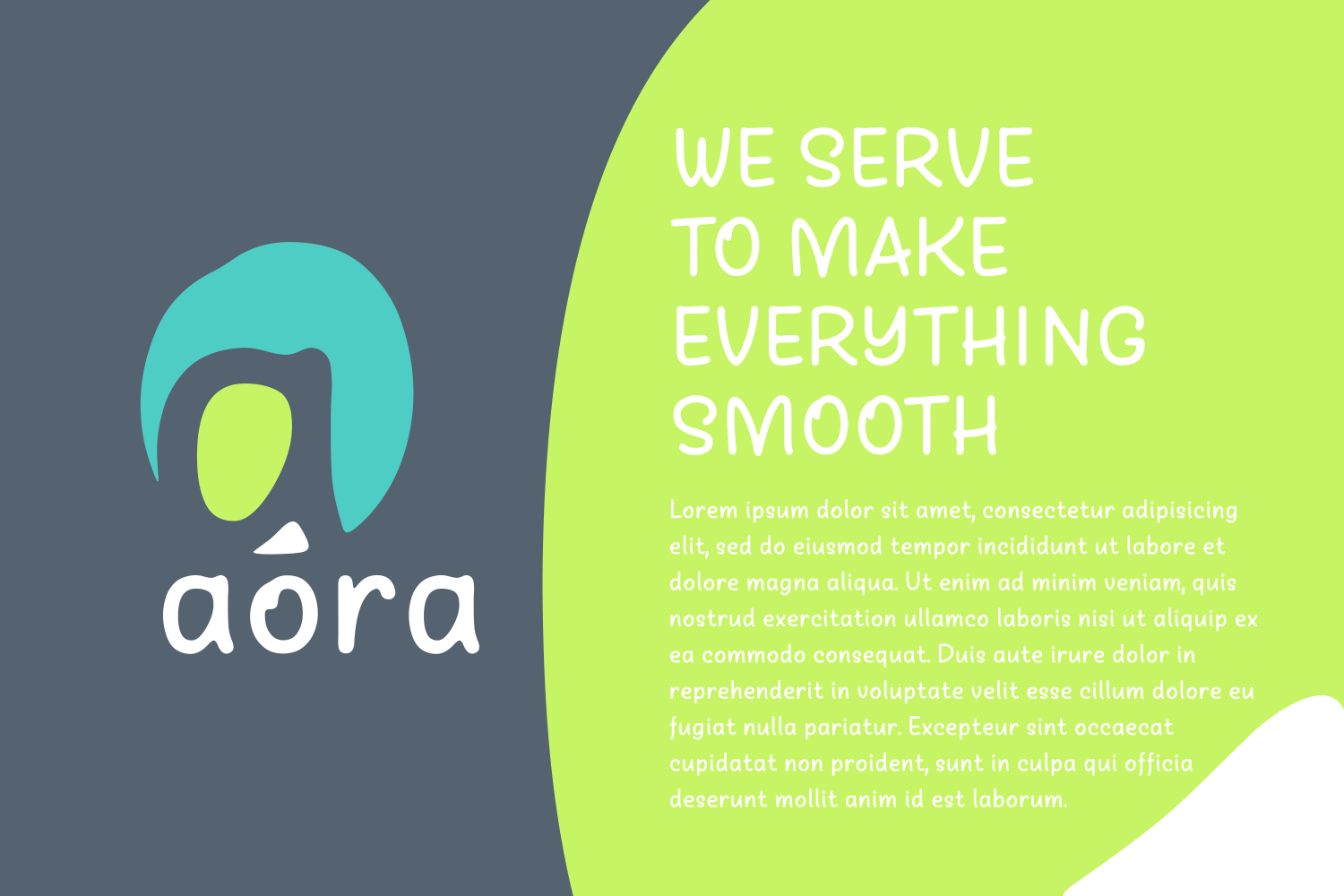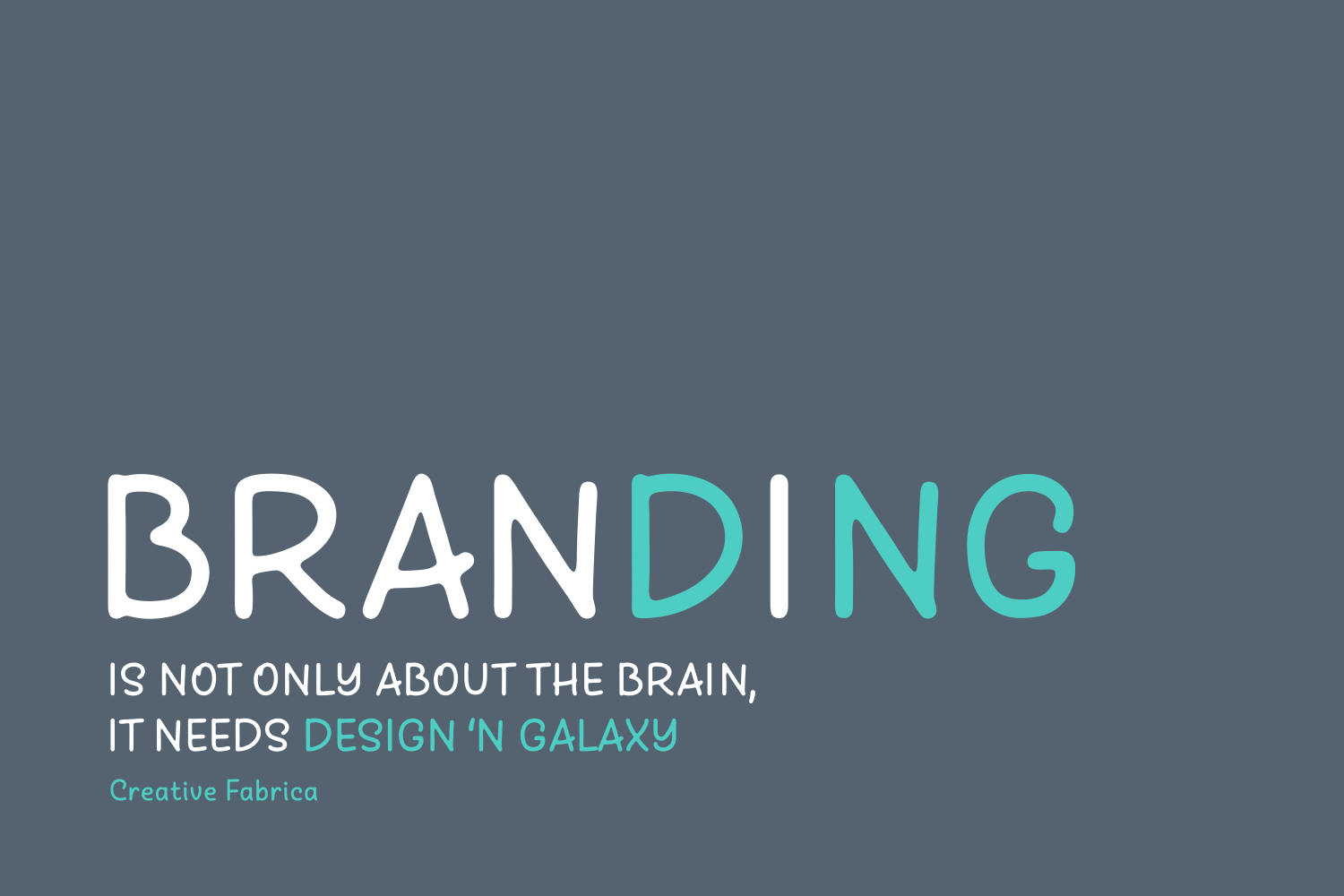
Circum Font
About Circum Font
Circum, a smooth & rounded handwritten font.
The Circum font is a friendly type that is surprising legible. It works great for both headlines and body text, which make it a versatile font.